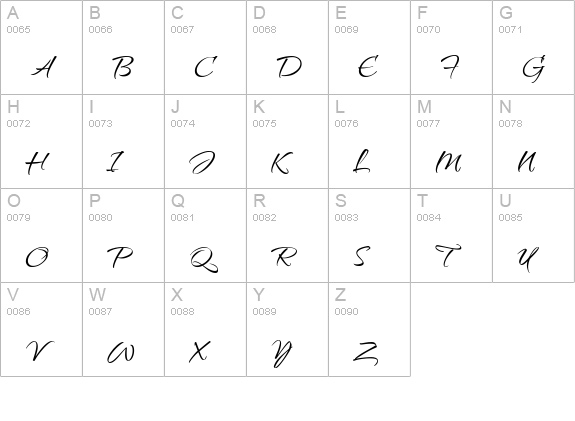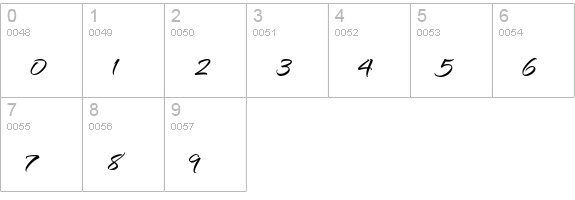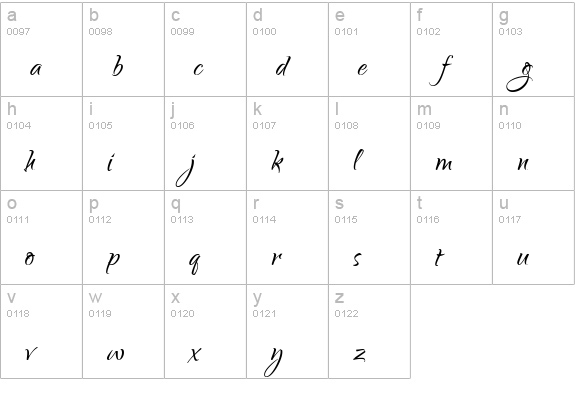
Qwigley ROB Font Details
Introducing Qwigley ROB, a stunning and expressive font that will bring a touch of elegance and sophistication to any project. With its unique and intricate letterforms, this font is perfect for adding a touch of individuality to your designs. Qwigley ROB offers a harmonious balance between modernity and classic calligraphy, making it suitable for a wide range of creative applications. Whether you're designing wedding invitations, branding materials, or even social media graphics, this font will effortlessly elevate your work to new heights. One of the most remarkable features of Qwigley ROB is its versatility. It effortlessly adapts to different styles, allowing you to experiment and create unique combinations that truly reflect your artistic vision. It's the perfect choice for those who are looking to add a touch of sophistication and luxury to their designs. And the best part? Qwigley ROB is completely free to download! Yes, you read it right – this exquisite font is available for free at FontsMarket.com. Now, you can enjoy the beauty and elegance of Qwigley ROB without any cost. It's a rare opportunity to access such a high-quality font without breaking the bank. So, why wait? Dive into the world of Qwigley ROB and let your creativity soar. Download this remarkable font today and experience the beauty and versatility it has to offer. Whether you're a professional designer or a passionate hobbyist, Qwigley ROB will undoubtedly become an invaluable addition to your font collection. Don't miss out on this incredible opportunity to enhance your designs with this stunning typeface.